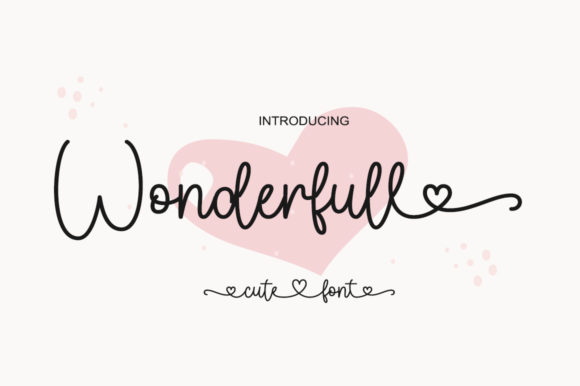
Prepare to be mesmerized by the Wonderfull Font, a remarkable script font family crafted with love by Jauzadesign. Experience the essence of elegance and class as this enchanting font graces your designs with a touch of luxury. Wonderfull is the ultimate choice for those seeking a font that embodies sophistication and charm. Its captivating curves and delicate strokes will elevate your projects to new heights of visual appeal.
Immerse yourself in the world of craft beer and let Wonderfull Font be your creative companion. With its inherent charm and versatility, Wonderfull is the perfect font for crafting eye-catching labels, branding materials, and marketing campaigns that exude individuality and authenticity. Its ability to infuse a sense of luxury and quality into your designs will make your craft beer stand out from the crowd, enticing beer enthusiasts to embark on a journey of taste and discovery.
Wonderfull Font is not just a font; it's an experience. Its PUA encoding opens up a world of possibilities, granting you effortless access to a treasure trove of glyphs and ligatures. Unleash your creativity and explore endless design combinations, adding a touch of personal flair to every project. Wonderfull Font is the key to unlocking a world of visual storytelling, where your designs become captivating narratives that resonate with your audience.
With Wonderfull Font, you'll discover a newfound passion for design. Its enchanting aura will ignite your imagination and inspire you to create projects that captivate and enthrall. Whether you're a seasoned designer or just starting your creative journey, Wonderfull Font will empower you to leave a lasting impression with every design you produce. Its user-friendly nature makes it accessible to all, ensuring a smooth and enjoyable creative experience.
Join the ranks of discerning designers who have embraced the allure of Wonderfull Font. Let your creativity soar and witness the transformation of your designs into masterpieces that evoke emotion and admiration. Wonderfull Font is more than just a font; it's an investment in your creative future, promising endless possibilities and unwavering satisfaction. Embrace the beauty of Wonderfull Font and unlock the full potential of your design endeavors.